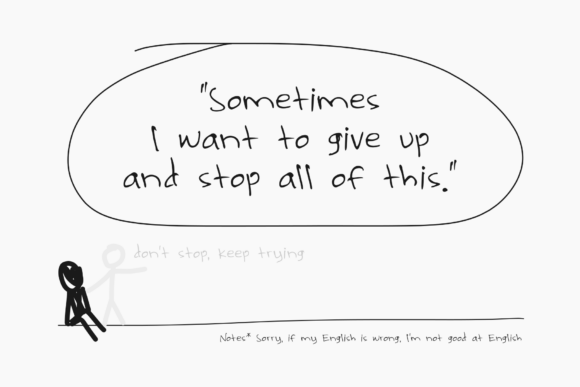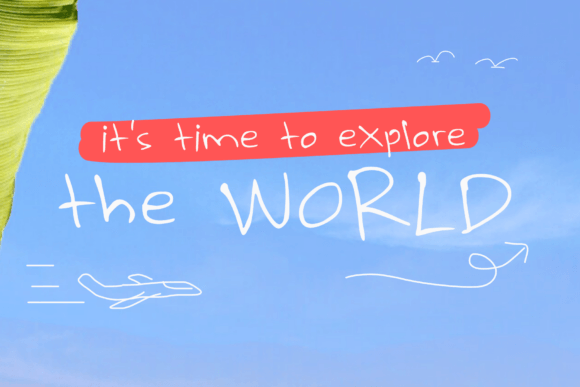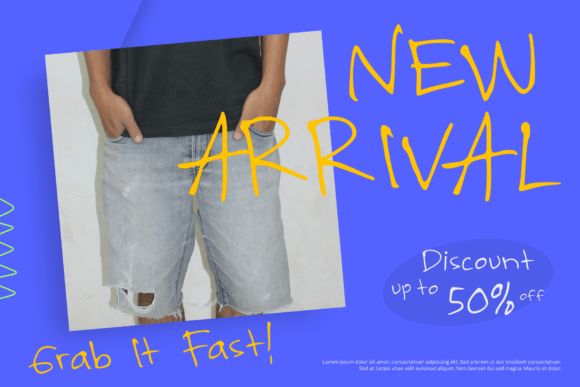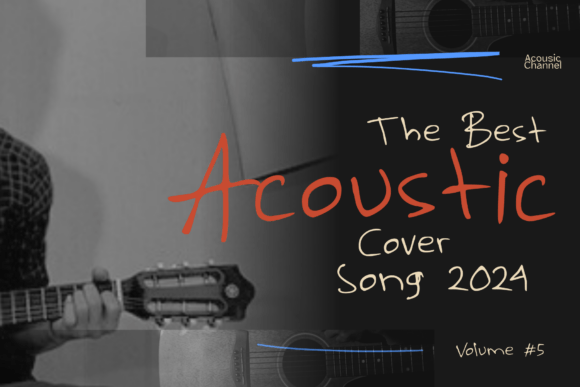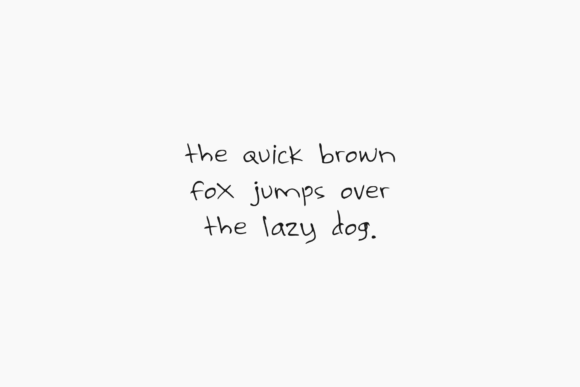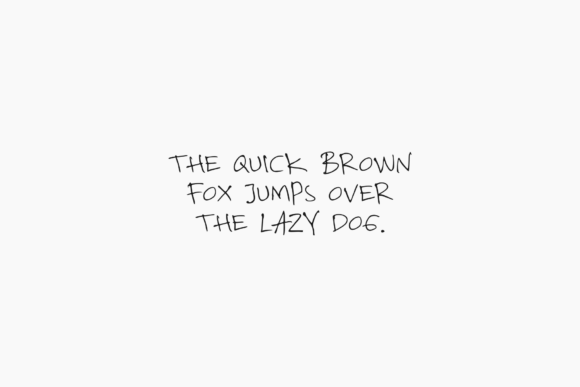
Introduction to Notinterested Font Font
Fonts play a crucial role in design, and the Notinterested Font font is a typeface that brings both character and versatility to any project. Whether you’re working on a branding project, a website, or a print design, the Notinterested Font font offers a unique style that can elevate your work.
Introducing the charming and unique βNot Interestedβ handwritten font.
Engraved in a childlike style, this beautiful manuscript adds a truly distinctive feel Its fresh and fun tone breathes life into any design endeavor, effortlessly offering a shot of creativity.
Key Features of Notinterested Font Font
Why Choose Notinterested Font Font?
The Notinterested Font font is more than just a typeface β it’s a design tool that helps you communicate your message with style and clarity. Its unique character set and versatile design make it suitable for a wide range of applications, from elegant invitations to bold headlines.
With its carefully crafted letterforms and balanced proportions, the Notinterested Font font ensures readability and visual appeal across all mediums.
What makes Notinterested Font font special?
The Notinterested Font font stands out with its unique design, exceptional readability, and versatility across various design applications.